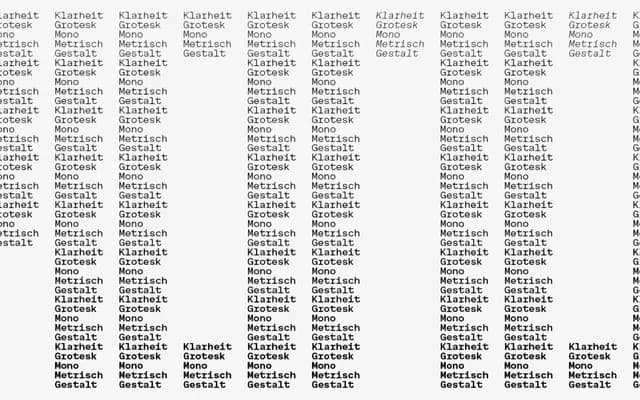
ES Klarheit Grotesk Mono
ES Klarheit Grotesk Mono specimen from Extraset
A monospaced companion to ES Klarheit Grotesk, designed by Alex Dujet with geometric Bauhaus influences and 1960s Swiss modernist proportions, featuring a monocase structure and 12 stylistic sets.
Built as an extension of the Klarheit project, this mono variant applies a monocase treatment to the same geometric formula underpinning the proportional family. Twelve stylistic sets offer a range of letterform finishes, including alternate G cuts, sweeping y, schoolbook forms and rounded punctuation, allowing shifts between neutral and more assertive settings. The fixed-width construction makes it well suited to vertical alignment requirements in UI, coding or tabular contexts.
A monospaced grotesque with geometric and Swiss modernist influences, explicitly designed as a monocase companion to the proportional ES Klarheit Grotesk family, drawing from Bauhaus geometry and 1960s Swiss typographic standards.